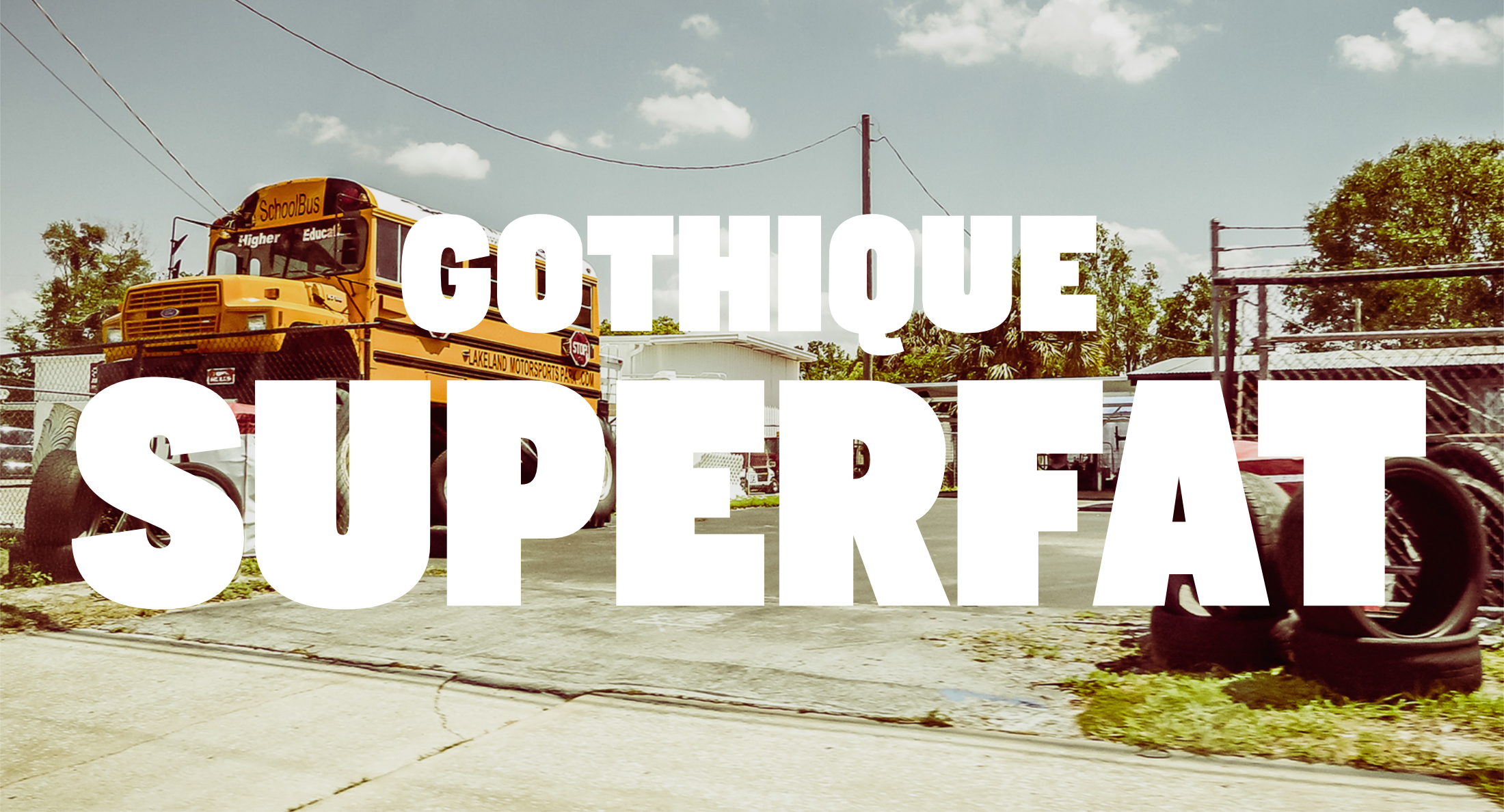
The name says it all. It is aesthetically located between American Gothics and European Grotesques and features small caps, a Central European character set and four number formats plus small caps numerals. This makes it not only a heartbreaking headline font, but also extremely versatile.